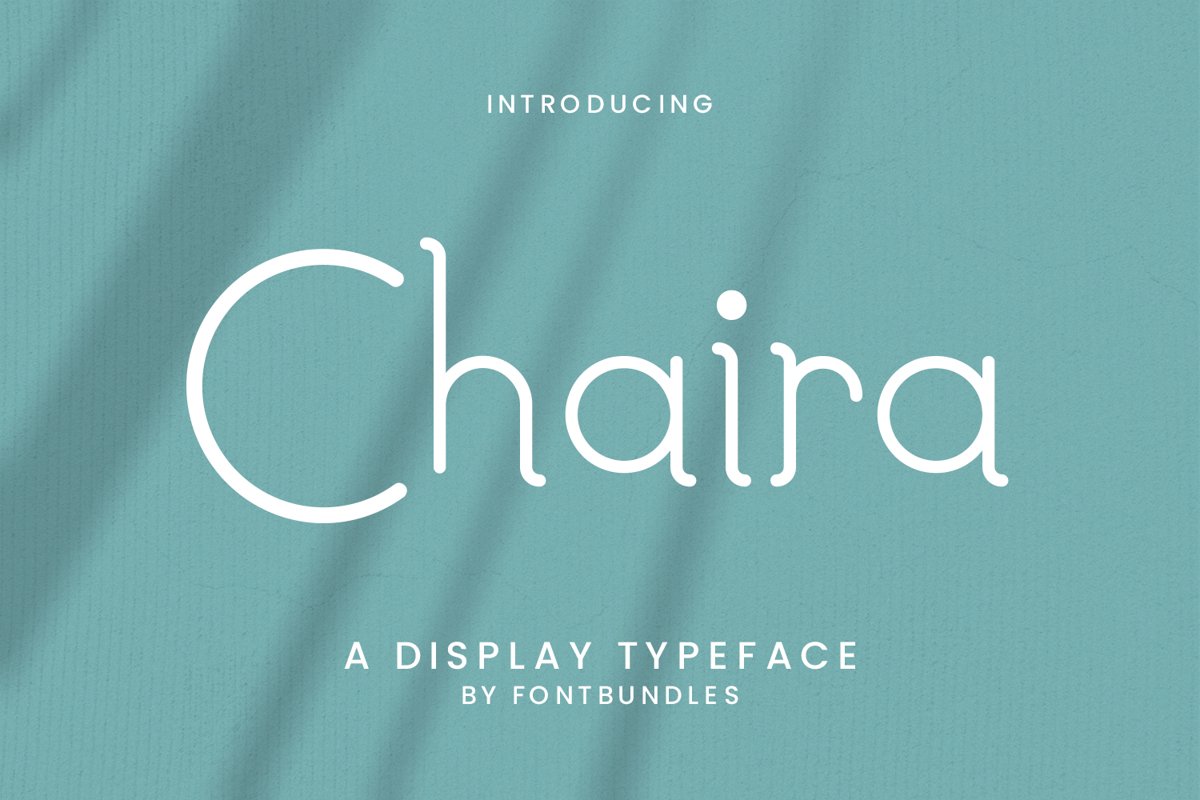
Chaira is fancy display typeface. Perfect for display, poster, name card, business card, quotes, branding, logo, badges, merchandise, packaging and many more.